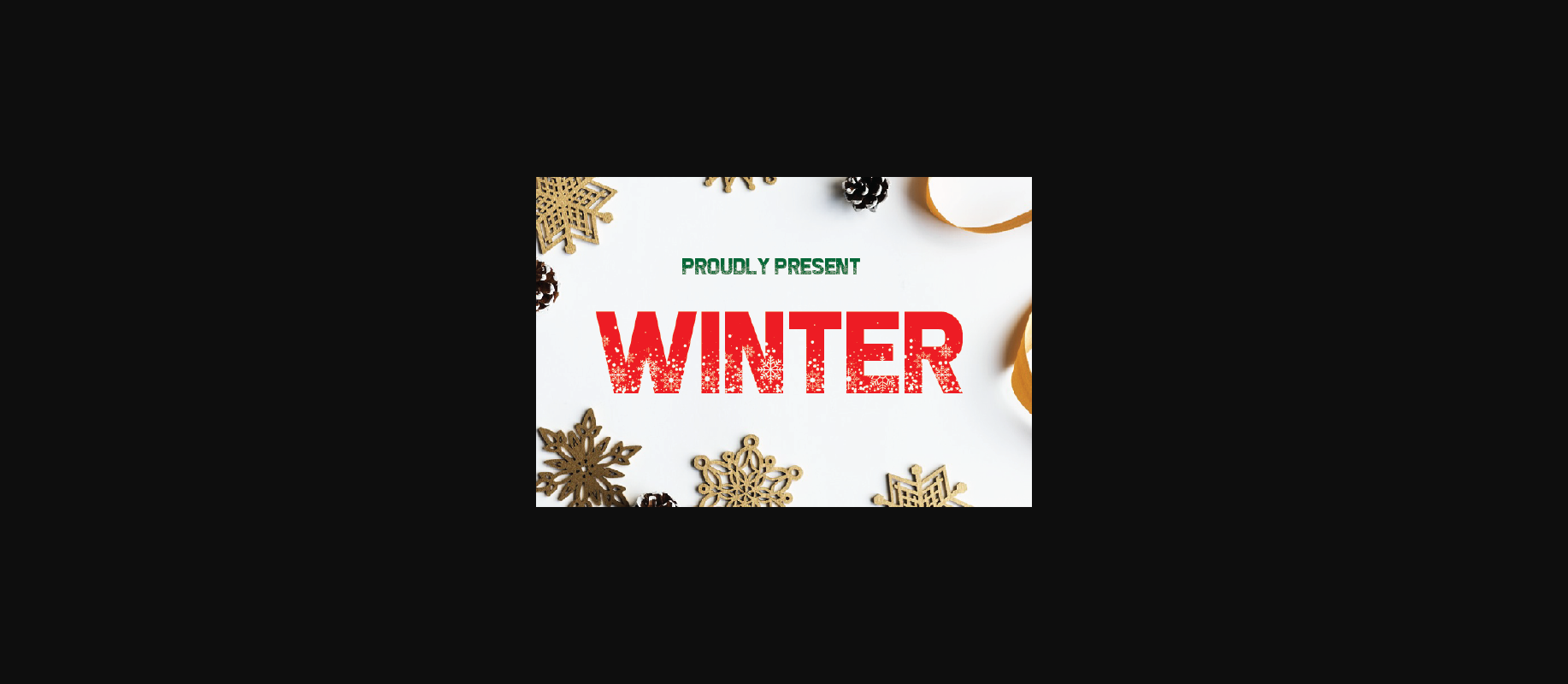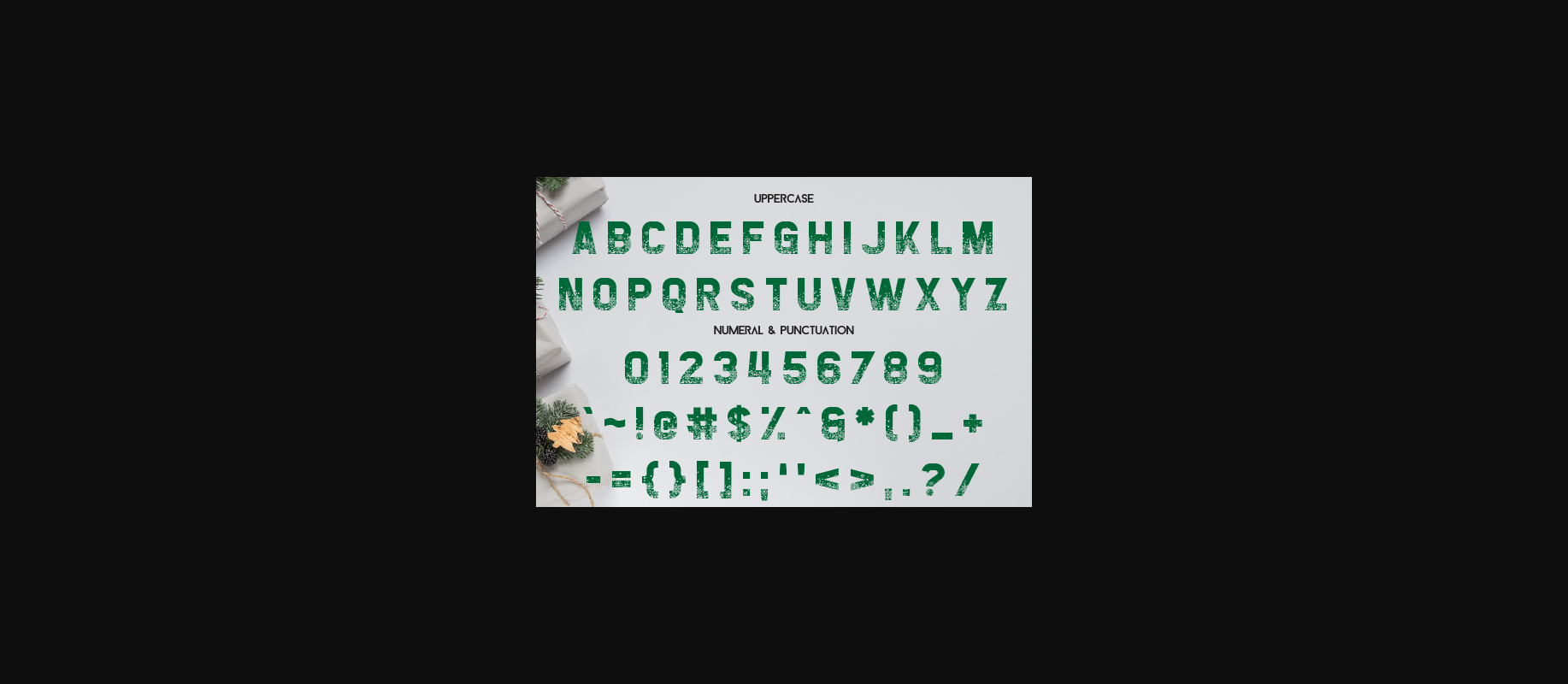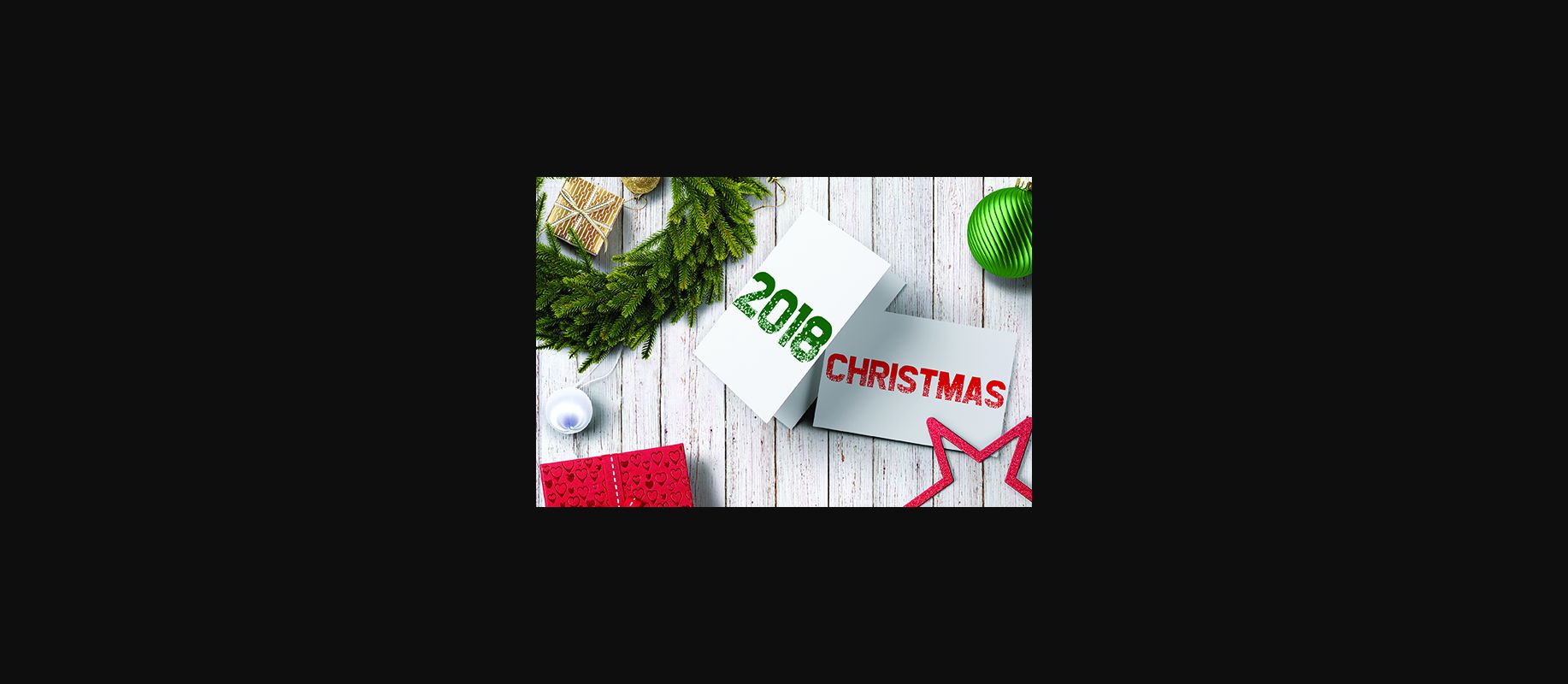
About Winter Font
The Winter is a fun typeface. It has snow elements on each characters which gives it a playful feel.
It’s perfect for cards, prints, illustrations, decorations, christmas designs, and much more!